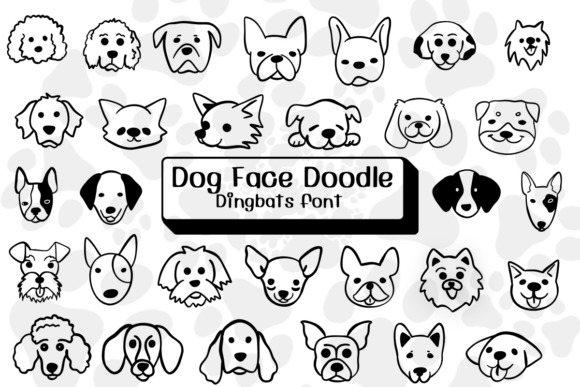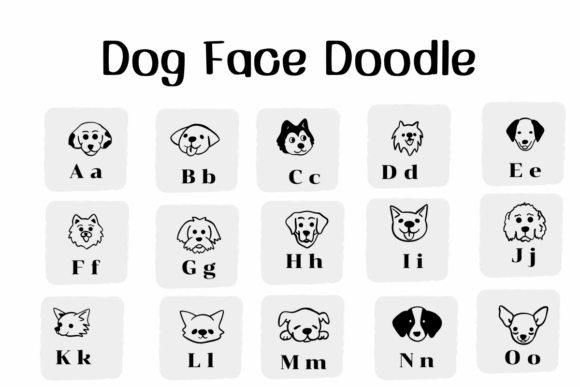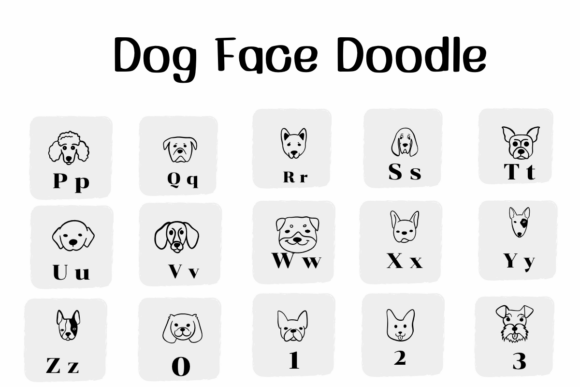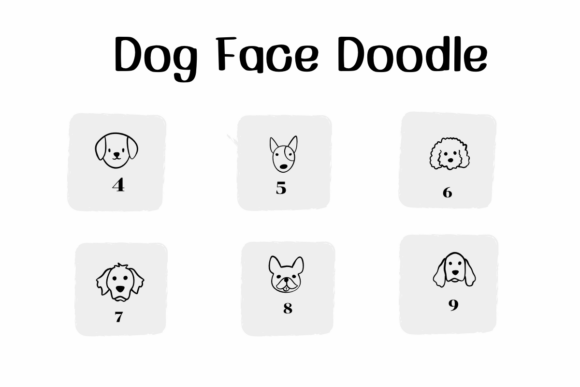
Dog Face Doodle Font
About the Dog Face Doodle Font
Get ready to be inspired by Dog Face Doodle Font, a fresh and dynamic typeface for modern creators. Dog Face Doodle
is a charming dingbat font featuring a collection of adorable dog faces in a variety of breeds and styles. Perfect for pet-themed designs, kids’ crafts, greeting cards, logos, and social media graphics. Add a playful and canine-loving touch to your projects with these delightful doodles!
This font’s playful nature makes it ideal for projects targeting children or young adults, pet-related businesses, and brands with a friendly, approachable image. It excels in applications like logos, social media posts, short headlines, and packaging design where its charming illustrations can add personality. However, its limited character set and informal style make it unsuitable for body text or large blocks of text. Avoid using it for formal documents or UI elements requiring high readability.
Dog Face Doodle pairs well with clean sans-serif fonts like Open Sans or Lato for a balanced contrast of playful and legible text. For a more whimsical feel, consider pairing it with a handwritten script font, but keep the script usage minimal to avoid visual clutter. Geometric sans-serif fonts would also offer a modern, controlled counterpoint.
The overall personality is undeniably cheerful and informal. Its charm stems from the variety of dog breeds represented, creating a friendly and approachable visual tone.